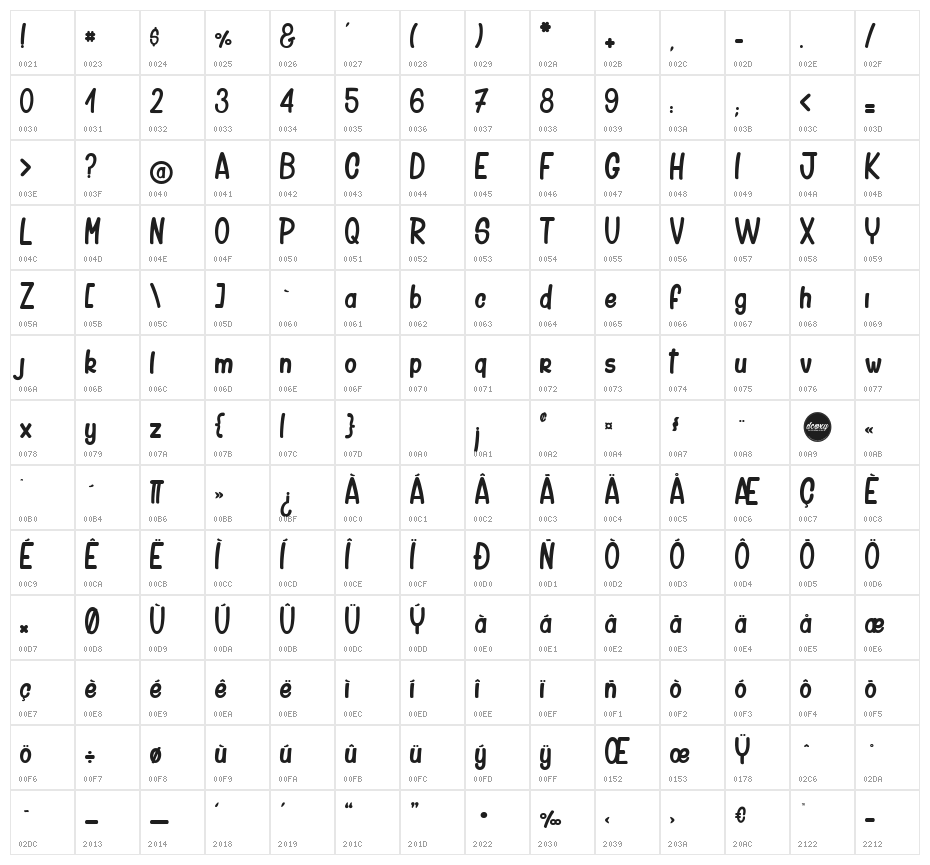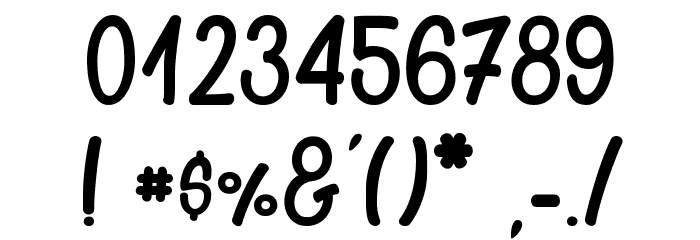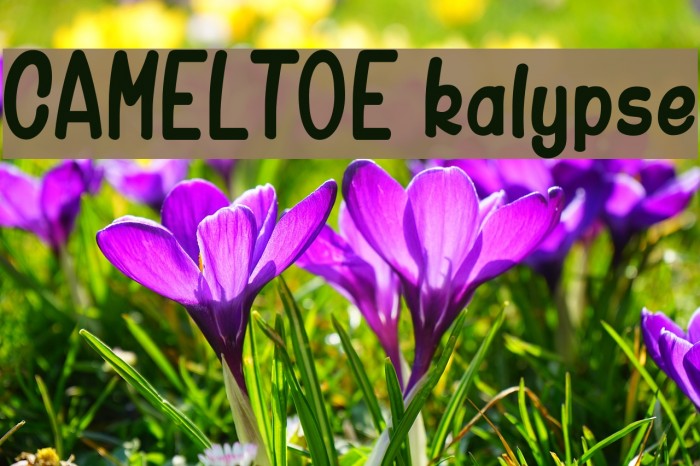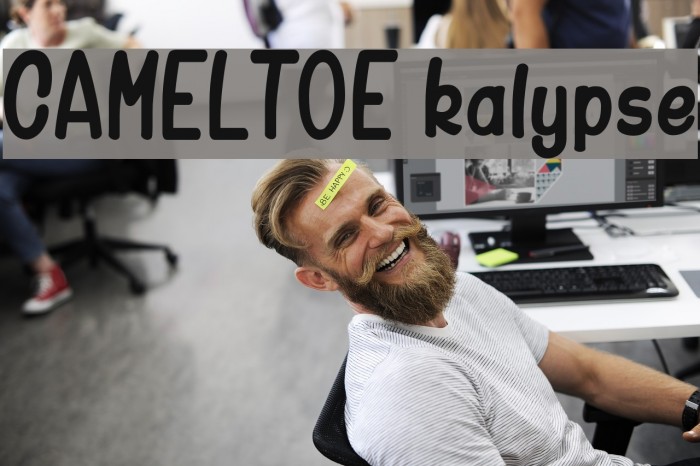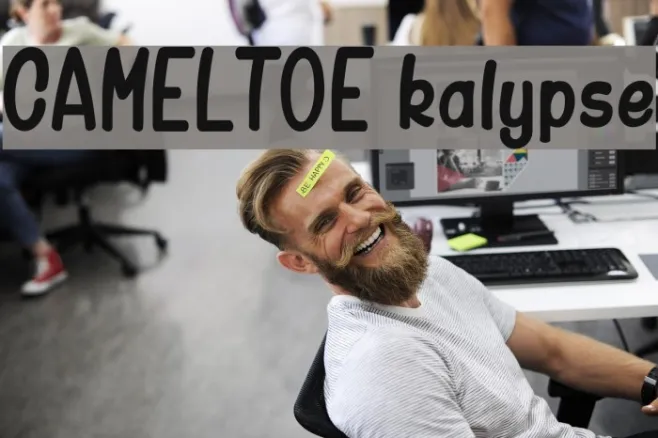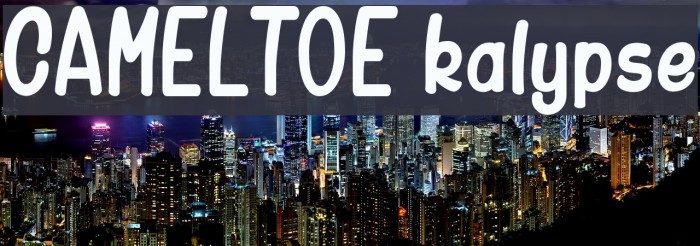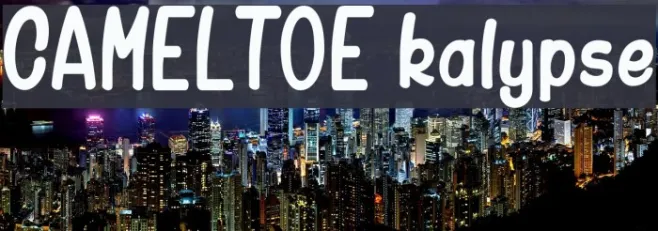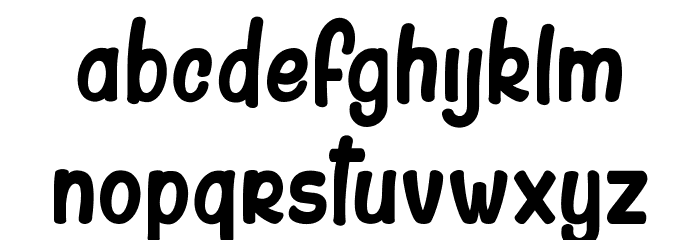
CAMELTOE kalypse Font
CAMELTOE kalypse Description
This playful and bold font features rounded, thick strokes that give it a friendly and approachable appearance. The characters are slightly condensed, with a consistent stroke width that maintains readability while adding a touch of whimsy. The uppercase letters are tall and prominent, while the lowercase letters maintain a similar width, creating a cohesive look. The numerals are clear and easy to distinguish, and the special characters are designed to match the overall style, making this font versatile for various uses.
| Proposed Projects | Ideal for children's books, playful branding, posters, and social media graphics. |